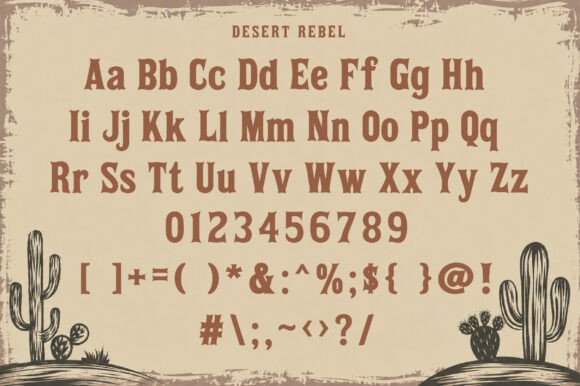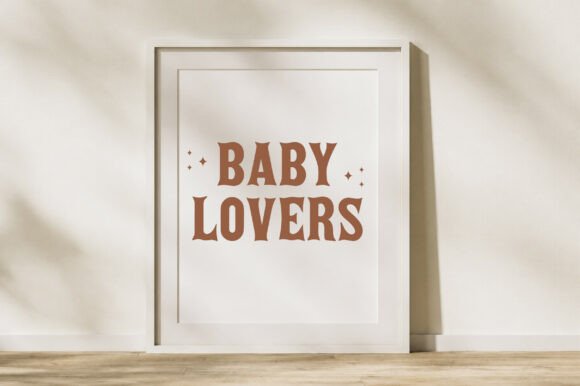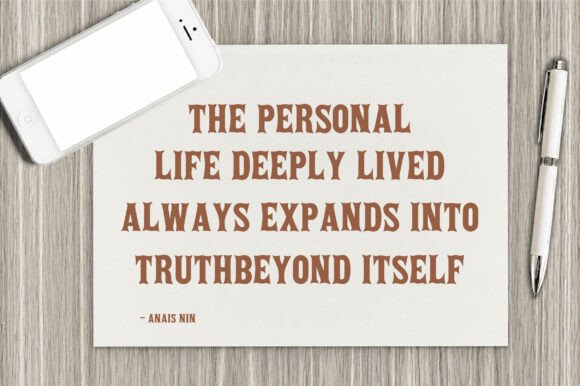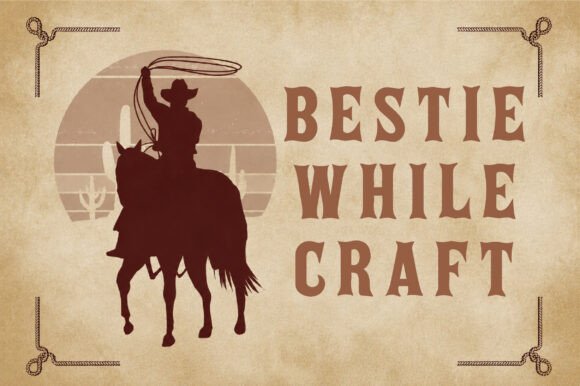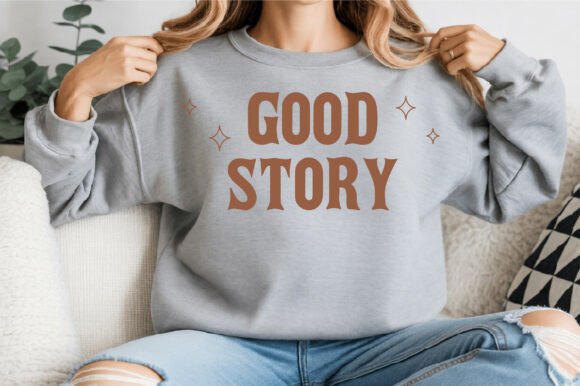
Unleash the Wild West: Introducing the Desert Rebel Font
Are you a designer or crafter looking for a font that embodies the spirit of the American West? Look no further than the Desert Rebel Font, a bold and rugged typeface inspired by vintage cowboy posters and dusty desert landscapes. With its sharp serif details, rugged curves, and classic western vibe, this font is perfect for creating retro branding, western logos, saloon posters, apparel designs, Cricut projects, invitations, packaging, and vintage-themed creations.
The Inspiration Behind Desert Rebel
The Desert Rebel Font is a love letter to the Wild West, drawing inspiration from the iconic posters and signage of the American frontier. The font’s design is characterized by sharp serif details, rugged curves, and a strong, bold character style that evokes the spirit of the cowboy era. Whether you’re looking to create a vintage-themed logo, a saloon poster, or a Cricut project, Desert Rebel has the perfect blend of ruggedness and sophistication.
Key Features of Desert Rebel Font
- Bold and Western-Inspired Design: Desert Rebel features a bold, western-inspired design that’s perfect for creating eye-catching headlines, logos, and posters.
- Sharp Serif Details: The font’s sharp serif details add a touch of ruggedness and sophistication to any design project.
- Rugged Curves: The font’s rugged curves give it a unique, hand-crafted feel that’s perfect for creating vintage-themed designs.
- Classic Western Vibe: Desert Rebel has a classic western vibe that’s perfect for creating designs that evoke the spirit of the American West.
Desert Rebel Font is perfect for designers and crafters who want to add a touch of the Wild West to their projects. Whether you’re creating:
- Retro Branding: Use Desert Rebel to create bold, eye-catching logos and branding materials that evoke the spirit of the American West.
- Western Logos: Create rugged, western-inspired logos that are perfect for saloons, ranches, and western-themed businesses.
- Saloon Posters: Use Desert Rebel to create vintage-style posters that advertise your business or event.
- Apparel Designs: Add a touch of the Wild West to your apparel designs with Desert Rebel, perfect for creating bold, eye-catching t-shirts, hats, and more.
- Cricut Projects: Use Desert Rebel to create custom Cricut projects, such as vinyl decals, iron-on designs, and paper crafts.
- Invitations: Create vintage-themed invitations for parties, events, and weddings with Desert Rebel.
- Packaging: Use Desert Rebel to create bold, eye-catching packaging that stands out on store shelves.
- Vintage-Themed Creations: Add a touch of the Wild West to your vintage-themed creations, such as scrapbooking, mixed media, and art projects.
Why Choose Desert Rebel Font?
With so many fonts to choose from, why choose Desert Rebel? Here are just a few reasons:
- Unique and Authentic Design: Desert Rebel has a unique and authentic design that’s inspired by the American West.
- High-Quality Design: The font is designed to high-quality standards, ensuring that it looks great in any design project.
- Versatile: The font is versatile and can be used in a wide range of design projects, from logos and branding to posters and packaging.
If you’re looking for a font that embodies the spirit of the American West, look no further than the Desert Rebel Font. With its bold, western-inspired design, sharp serif details, rugged curves, and classic western vibe, this font is perfect for creating retro branding, western logos, saloon posters, apparel designs, Cricut projects, invitations, packaging, and vintage-themed creations. So why wait? Download Desert Rebel Font today and unleash the Wild West in your design projects!